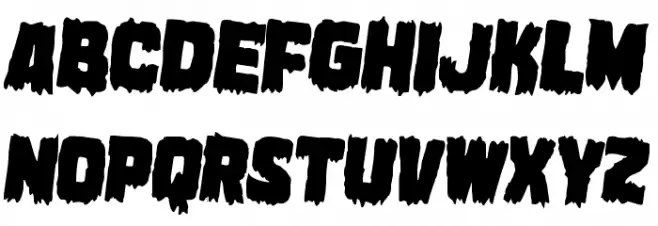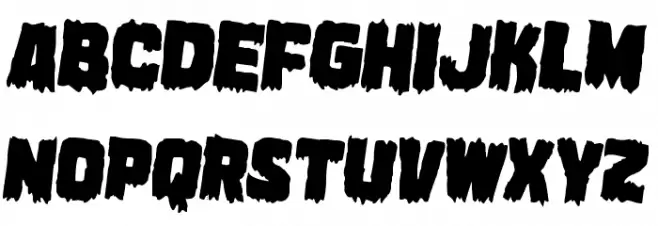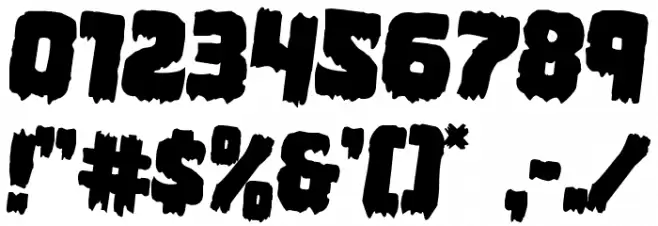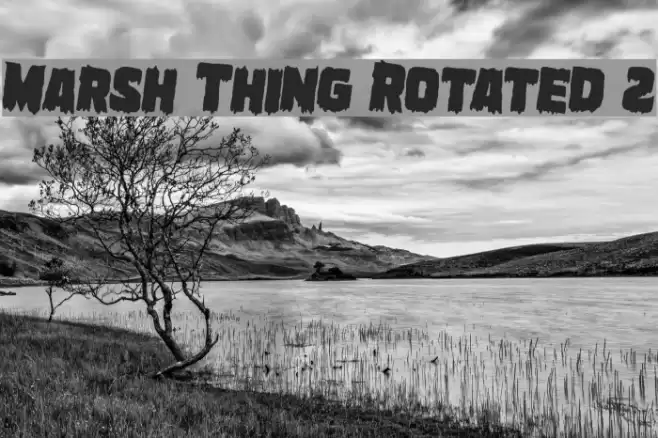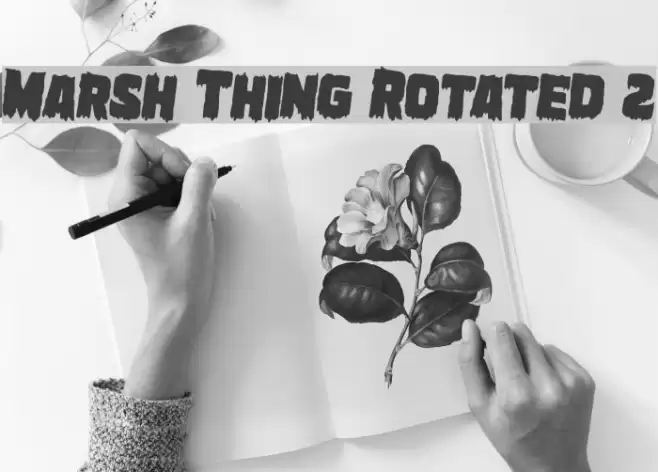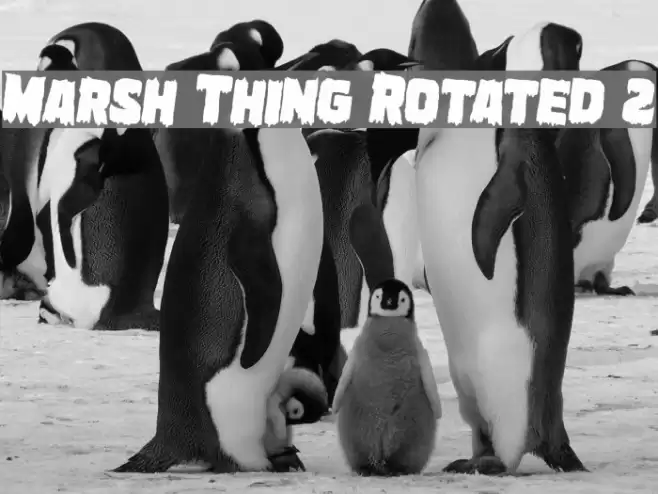
Marsh Thing Rotated 2
This font features a bold, rugged design with a distressed, organic texture reminiscent of natural elements. The characters have an uneven, jagged edge that gives them a dynamic and energetic appearance. The uppercase and lowercase letters maintain a consistent style, with a slightly condensed form that enhances their boldness. The numbers and special characters follow the same aesthetic, ensuring a cohesive look across all glyphs. This font's unique style makes it stand out, perfect for projects that require a strong visual impact.
A bold, rugged font with a distressed, organic texture and jagged edges.
- Proposed Projects: Ideal for horror-themed posters, Halloween invitations, edgy branding, or any project needing a dramatic, eye-catching typeface.
- Width: Condensed
- Overall Style: Decorative
- Use Case: Headlines, Logos, Posters